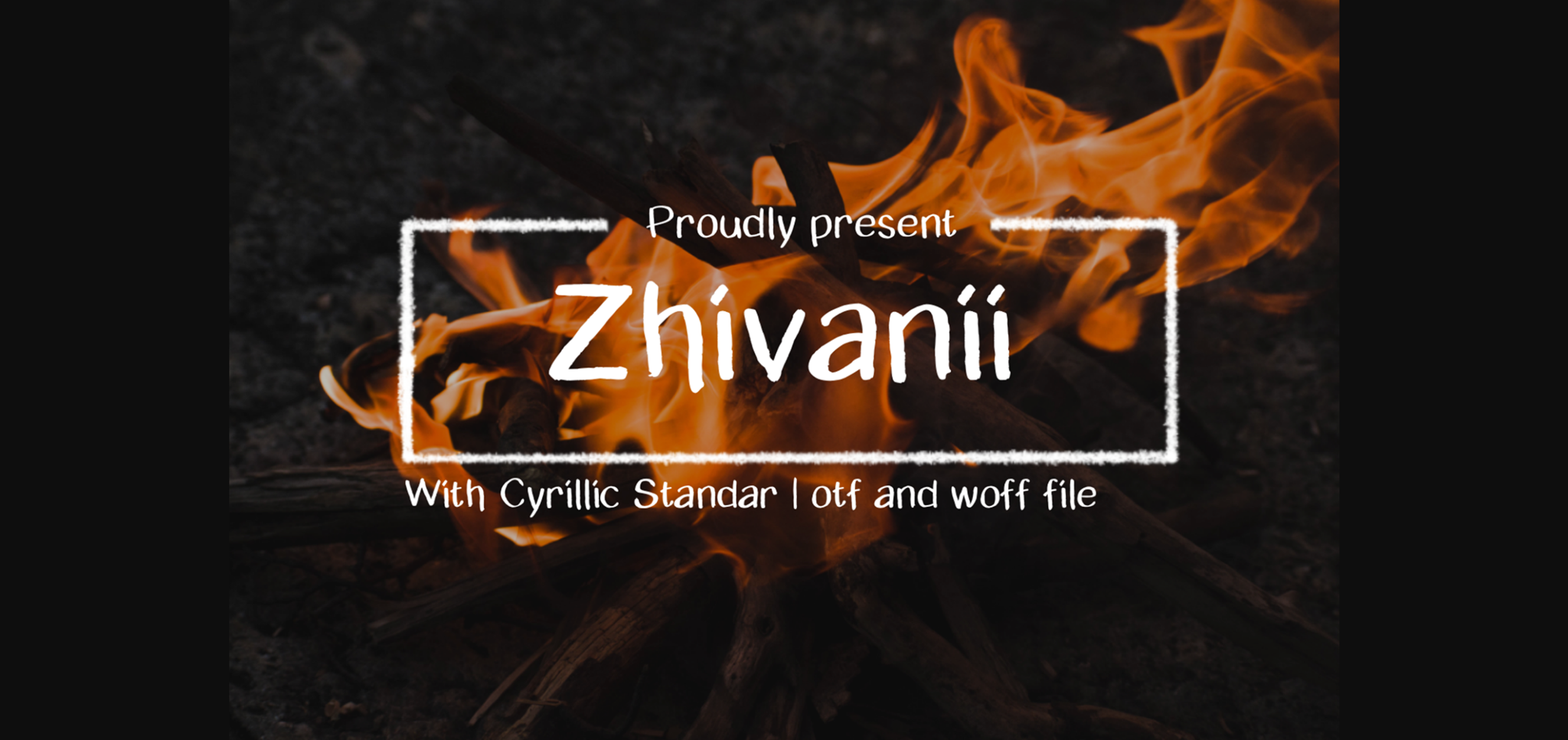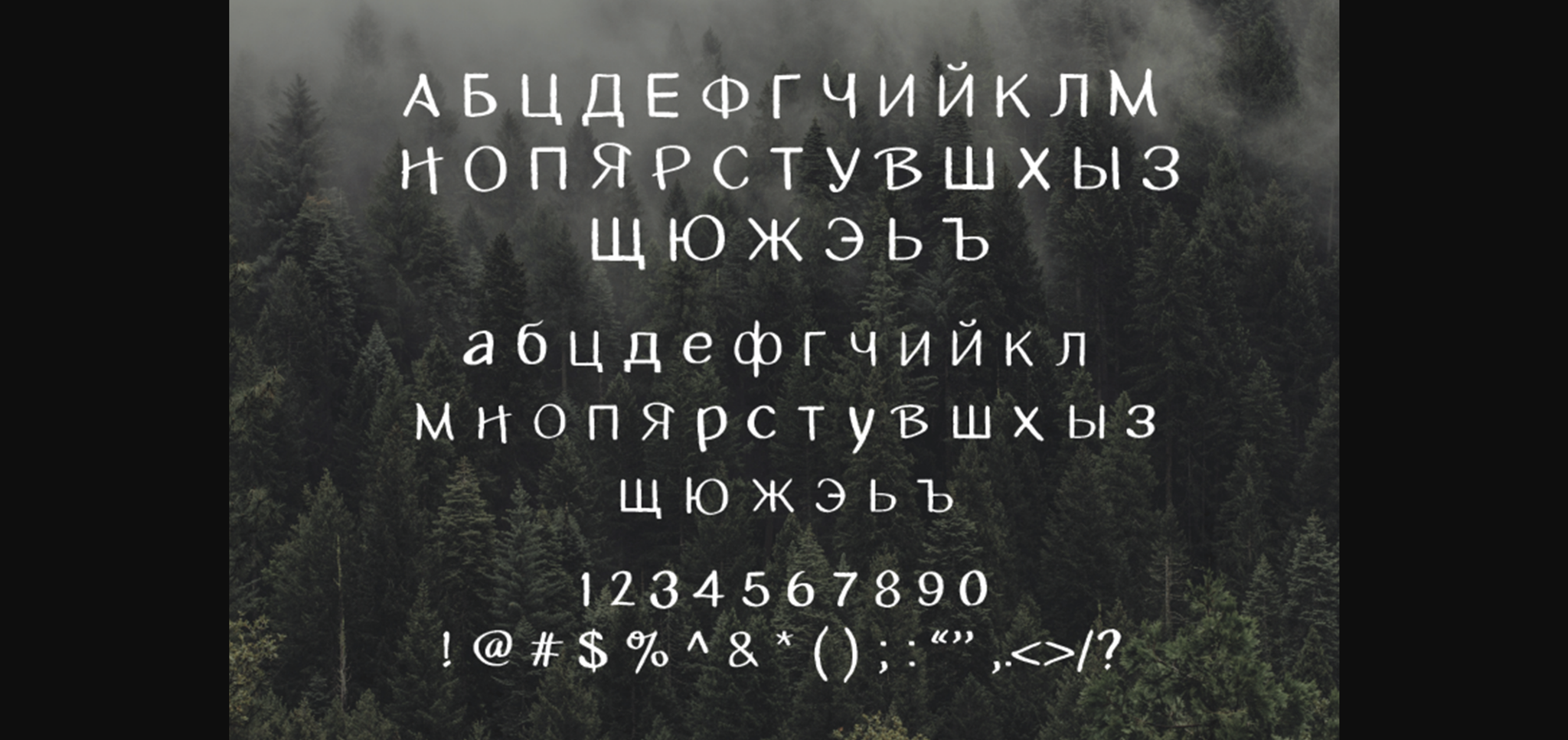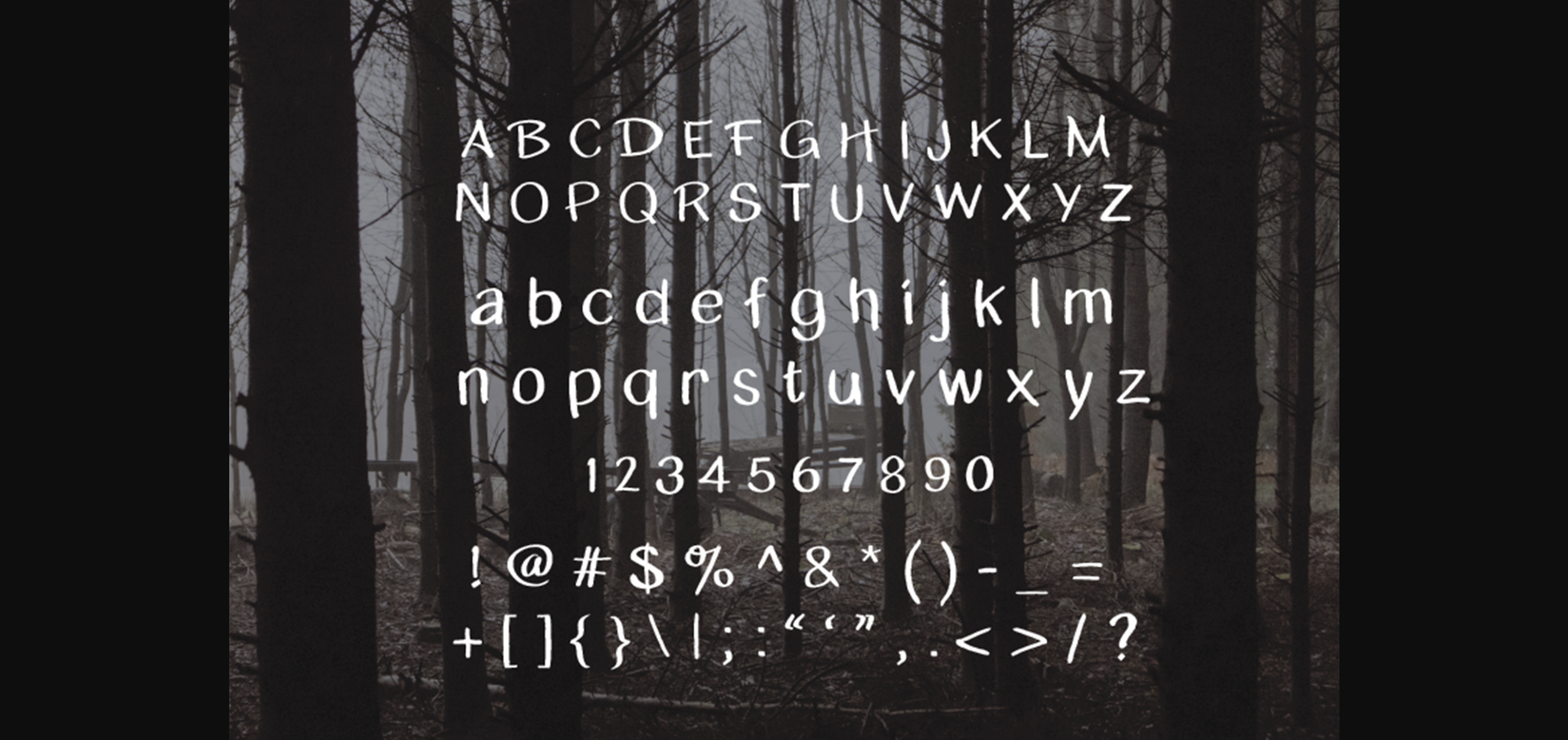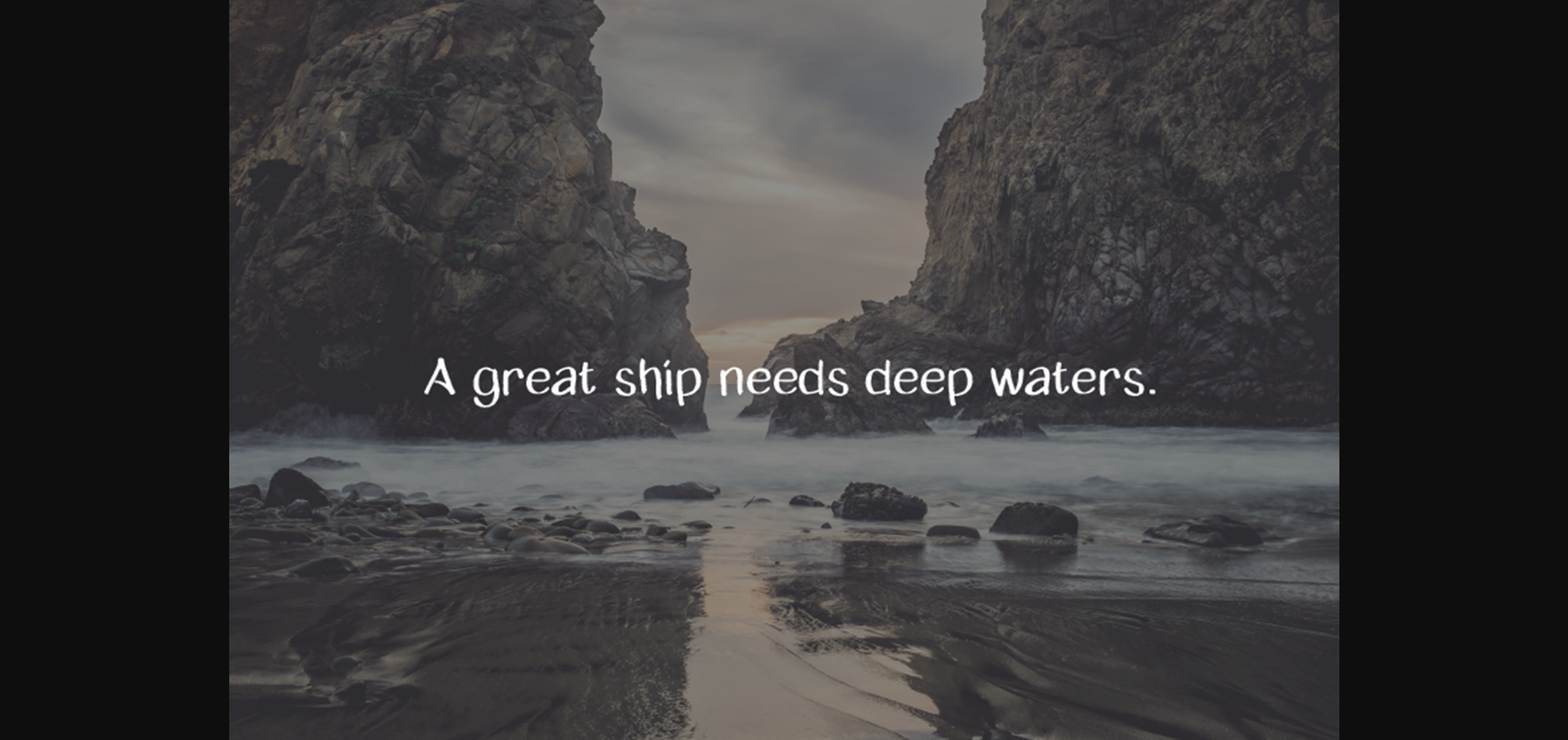
About Zhivanii Font
Zhivanii is a simple and neat lettered sans serif font. Suitable to a wide variety of designs due to its elegant simplicity, Zhivanii has the potential to become your favorite go-to font, no matter the occasion!